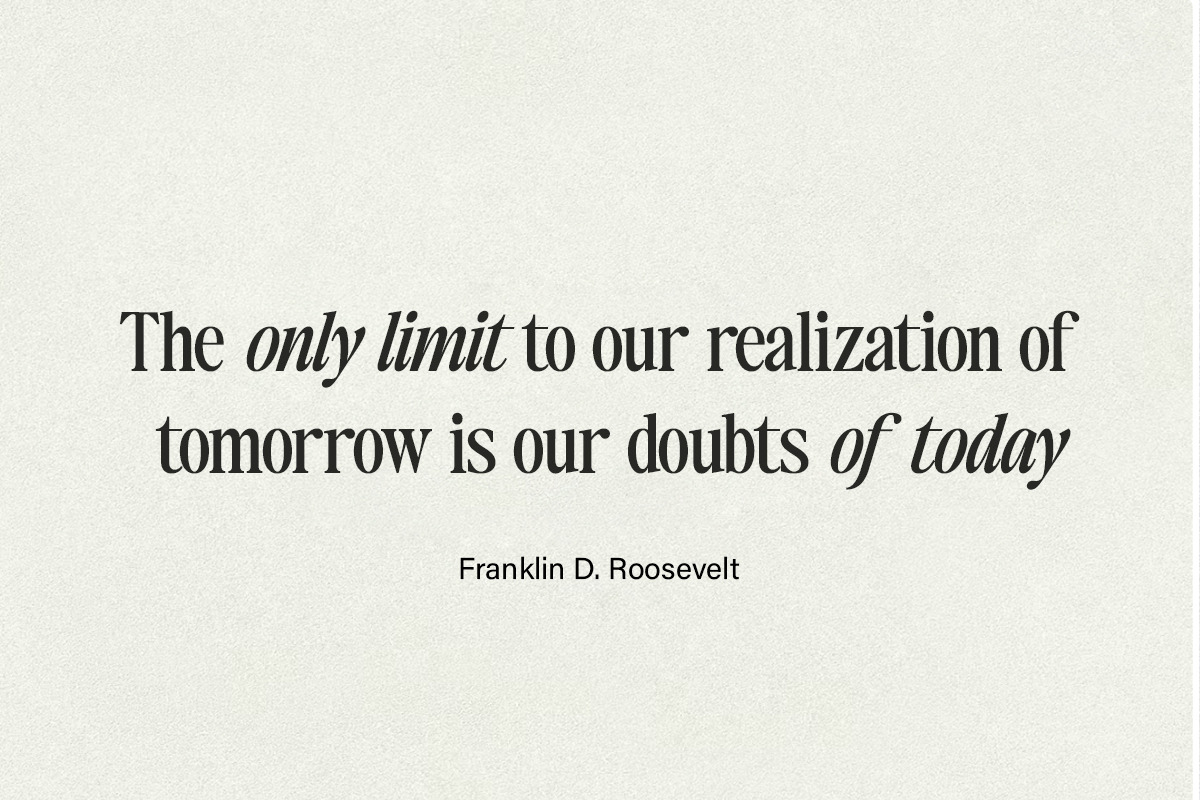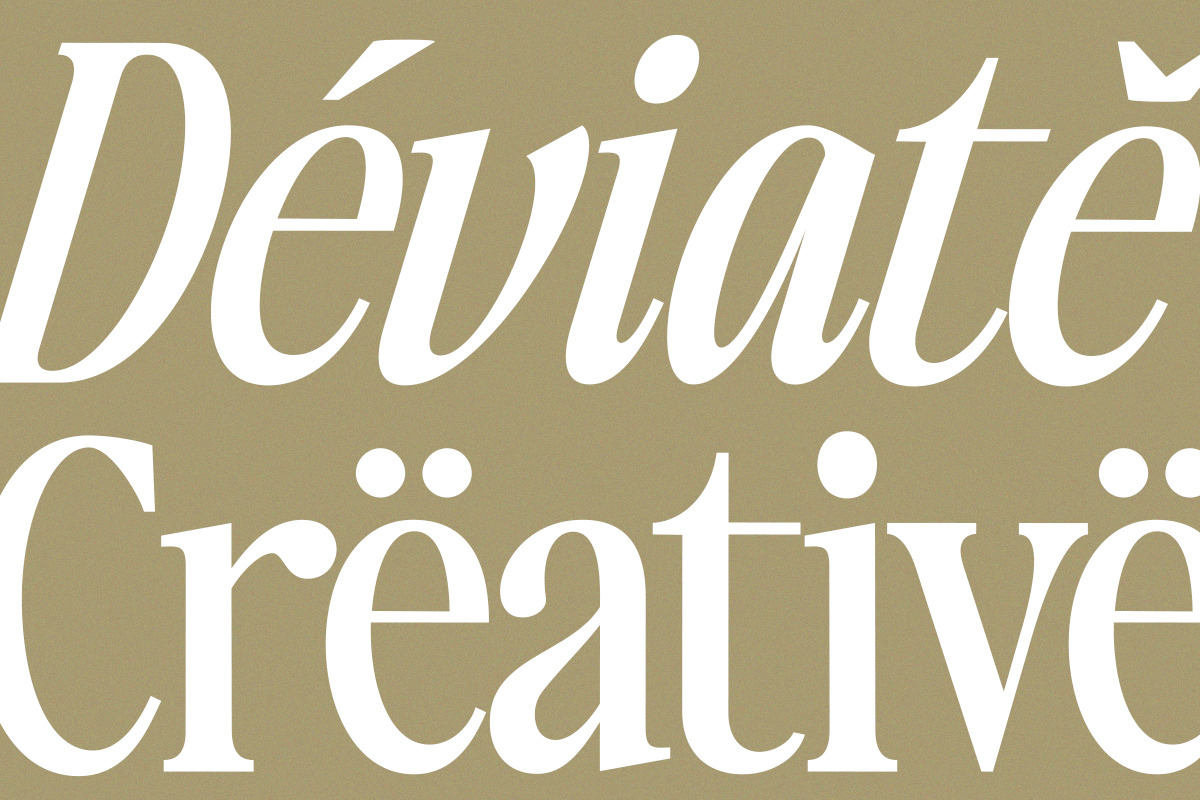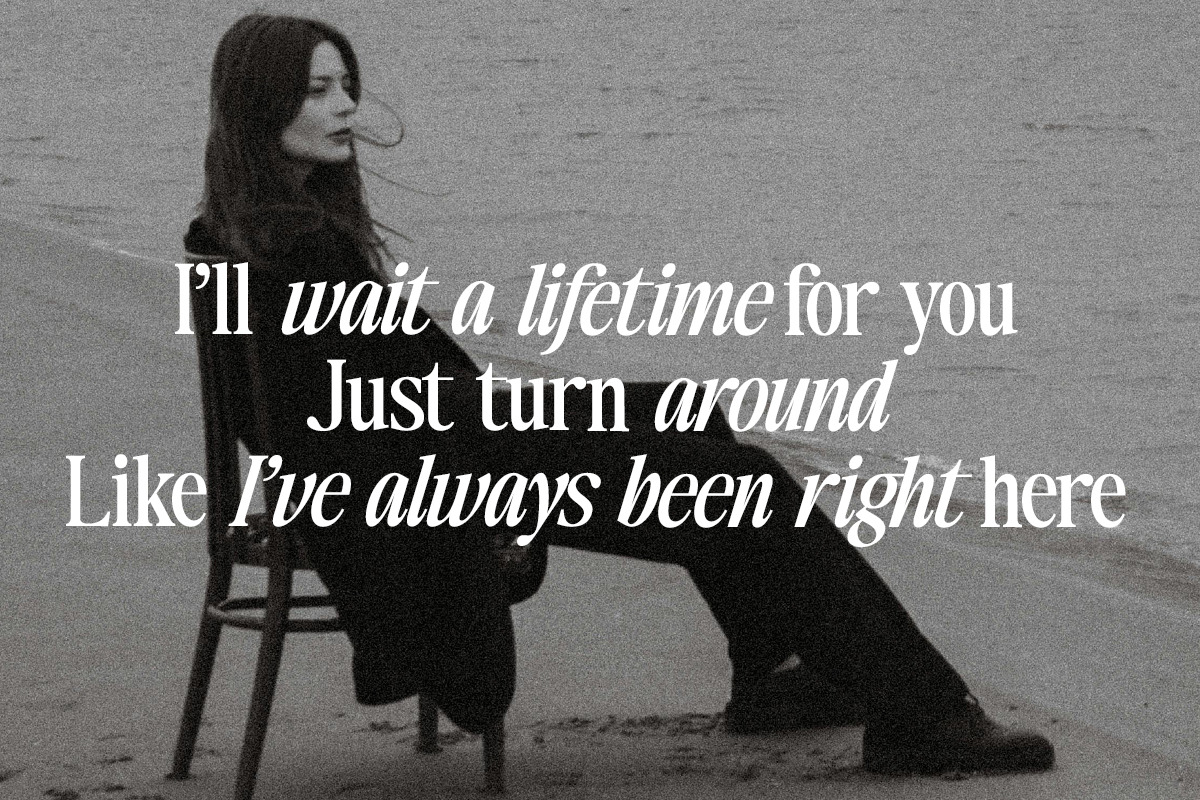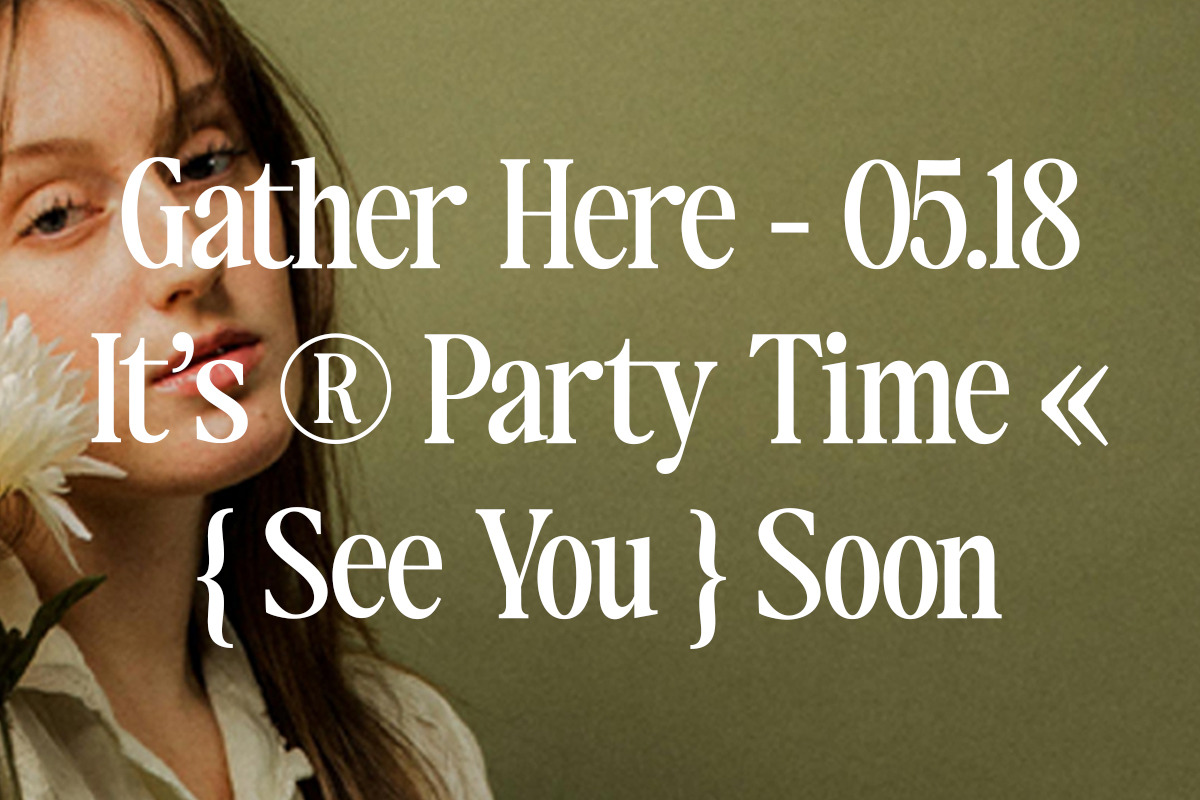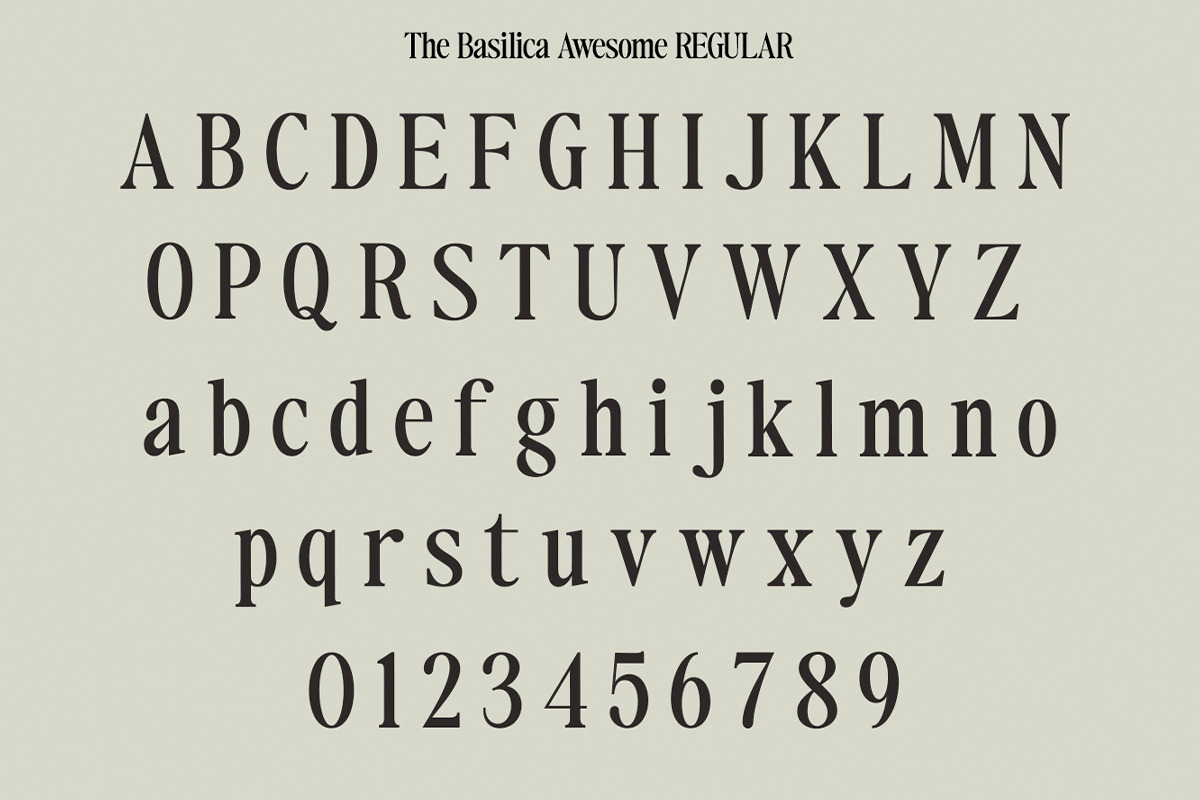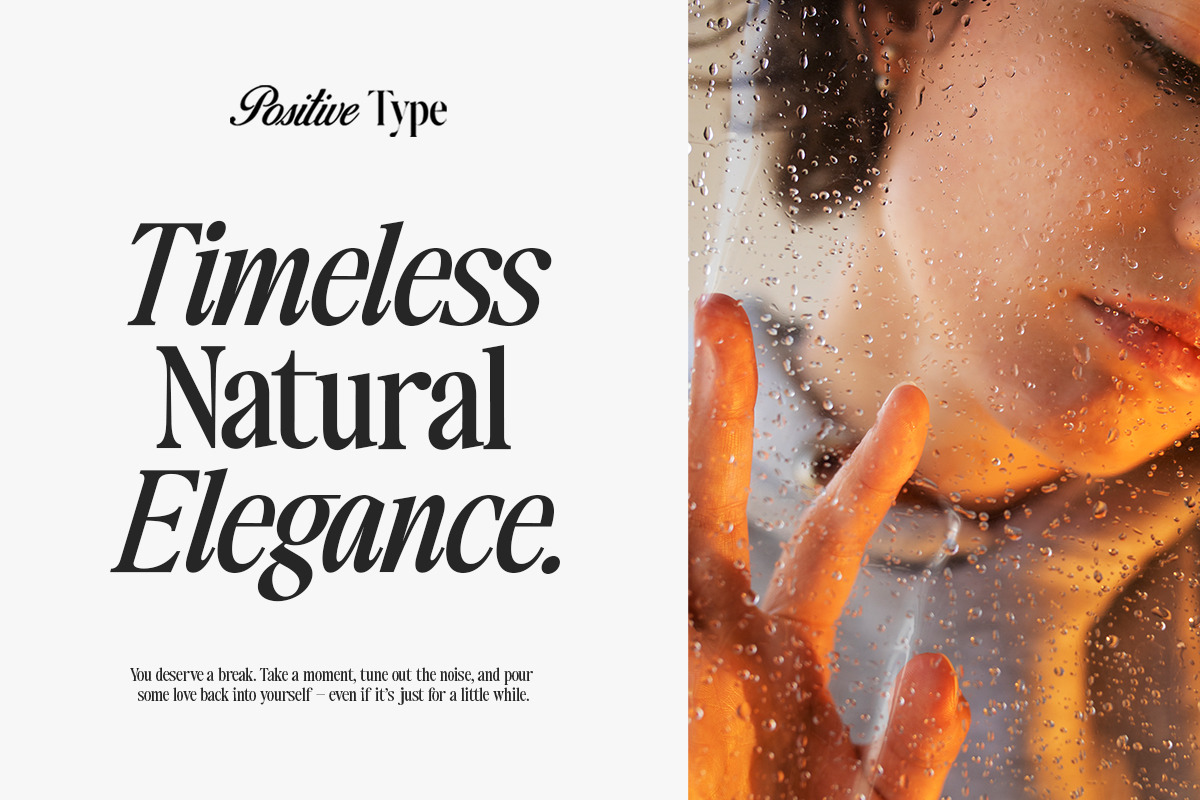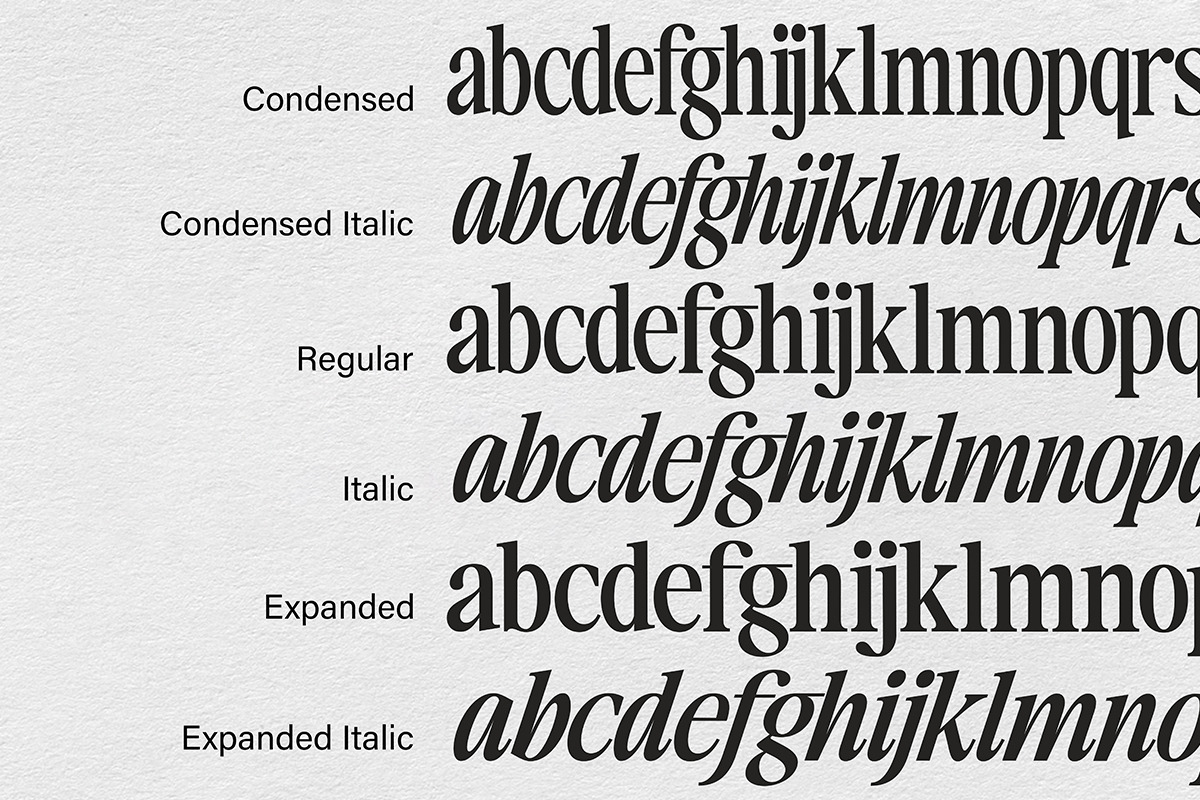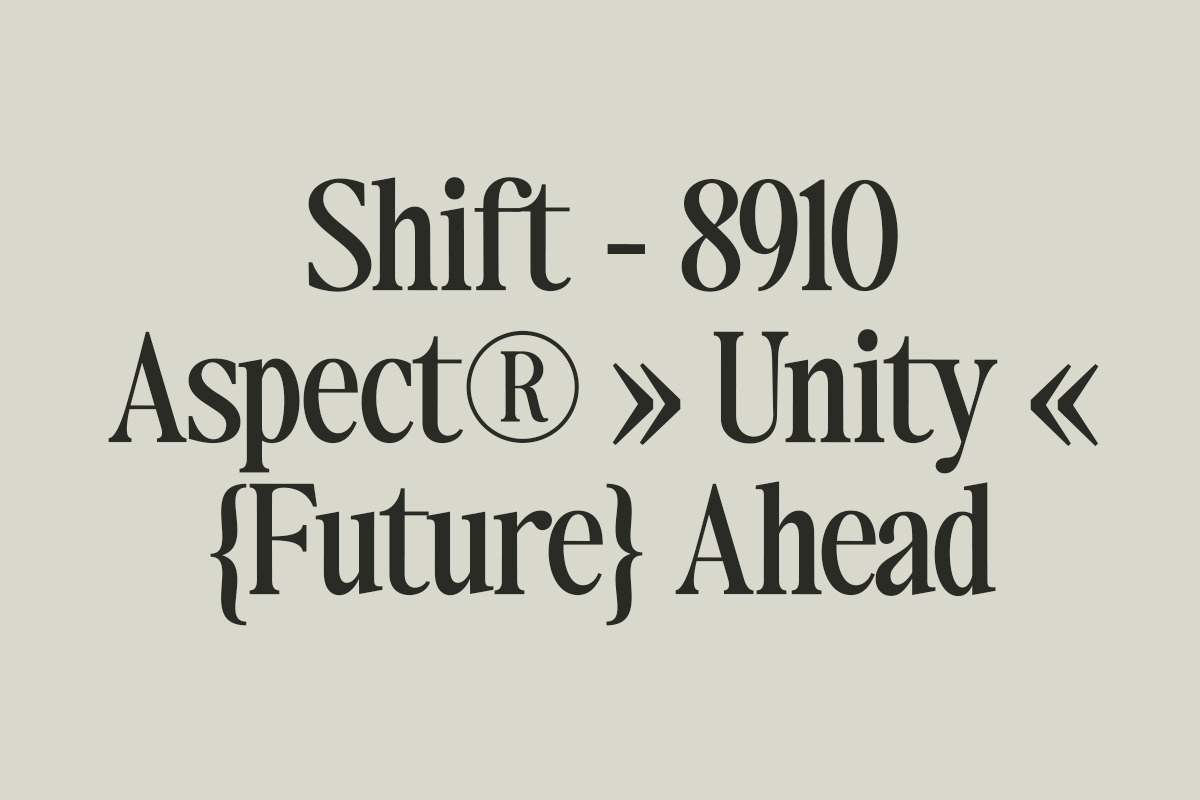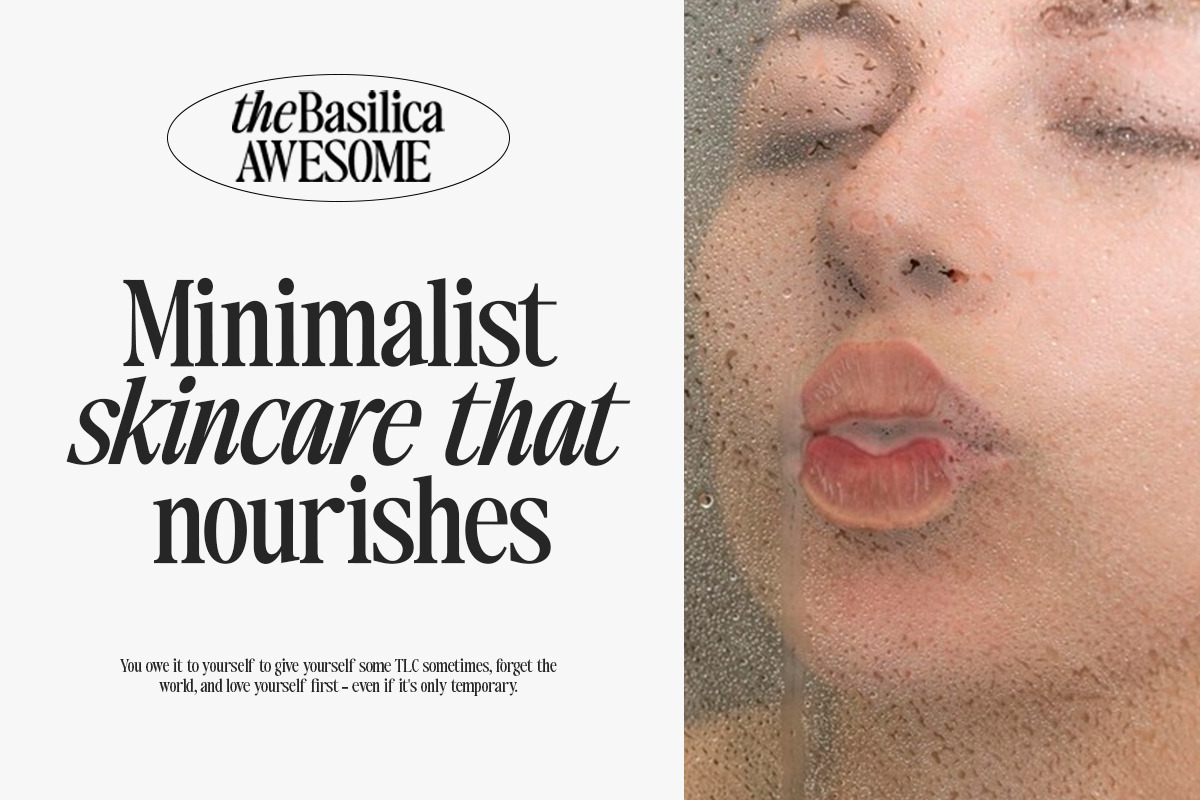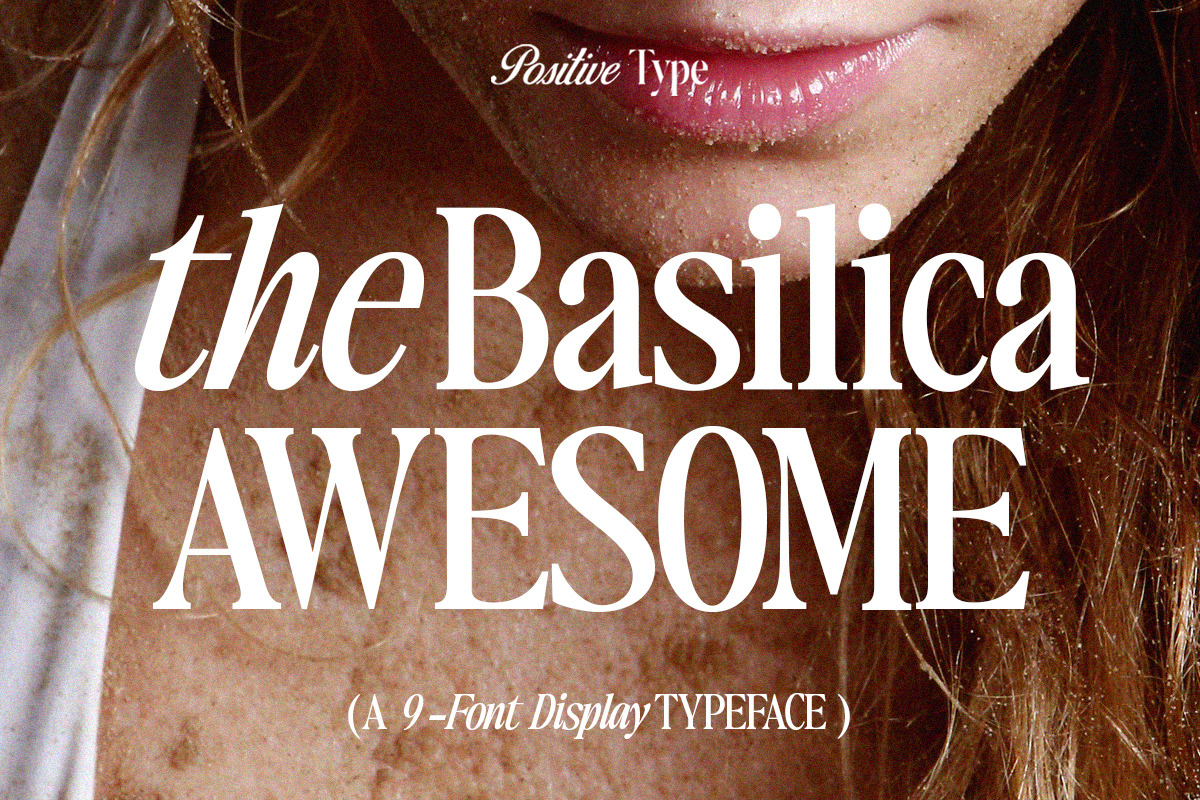
The Basilica Awesome Serif (9 Font)
The Basilica Awesome is a modern vintage serif font packed in a modern and classy style, complete with access to your OpenType features to access a wide selection of fonts, a choice of fonts you like from uppercase and lowercase variations to achieve a luxurious and elegant look.
Serifs are unique, playful, and versatile by enhancing the designs you like. This font is perfect for branding projects, logo designs, clothing branding, packaging, magazine titles, advertisements, t-shirts, postcards, and more.